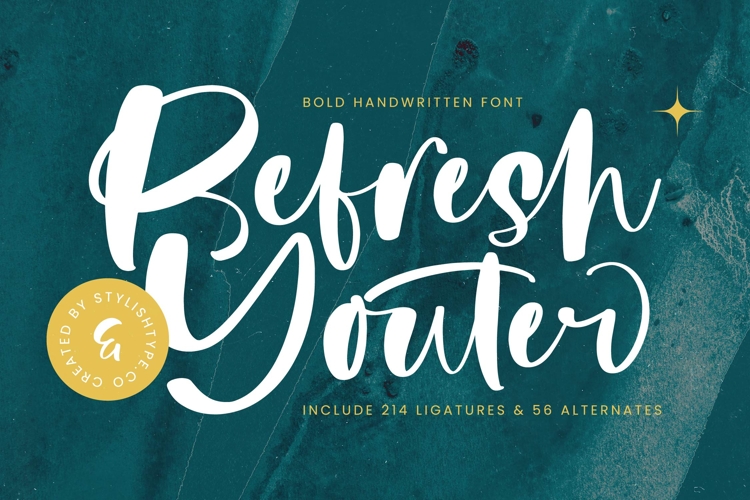
Refresh Youter - Bold Handwritten Font
Elevate your designs with the distinctive allure of Font Refresh Youter - Bold Handwritten Font Script. This exquisite script font embodies authentic charm and vibrant personality, ideal for projects demanding a human touch. Its generous, flowing letterforms and substantial weight ensure maximum impact and readability, effortlessly capturing attention. The handcrafted feel of Font Refresh Youter - Bold Handwritten Font Script infuses every word with an expressive and inviting quality.
Unlock unparalleled creative potential with features packed into Font Refresh Youter - Bold Handwritten Font Script. Designed for exceptional versatility, this font includes an impressive collection of over 200 ligatures and 50+ alternates. These extensive stylistic sets provide immense creative freedom, allowing seamless customization and a genuinely organic, non-repetitive handwritten aesthetic. Craft unique headlines, personalized greetings, and bespoke logos with a polished finish.